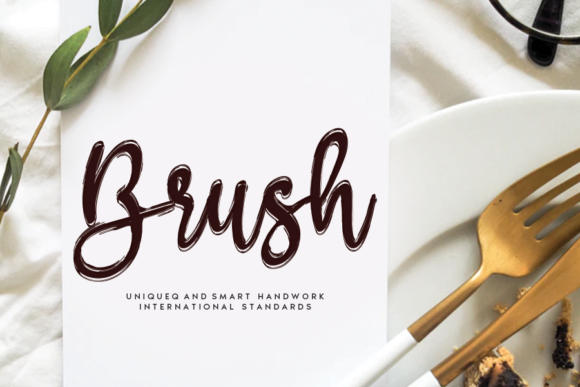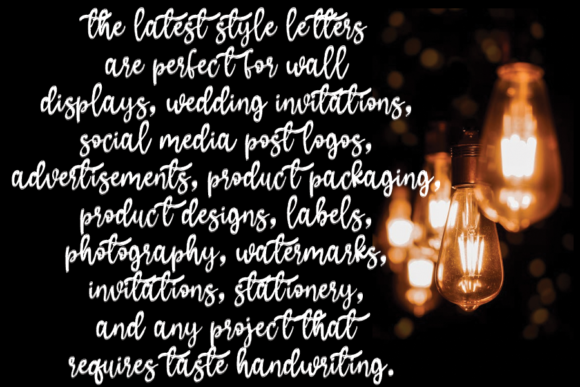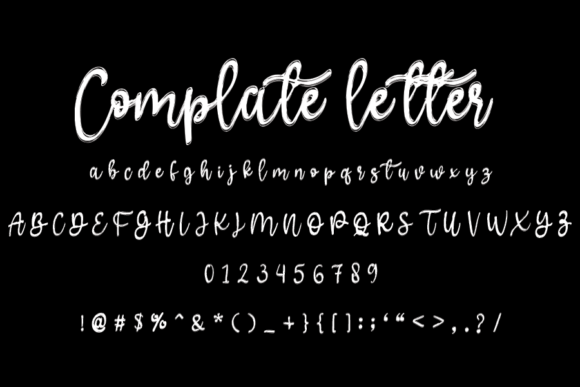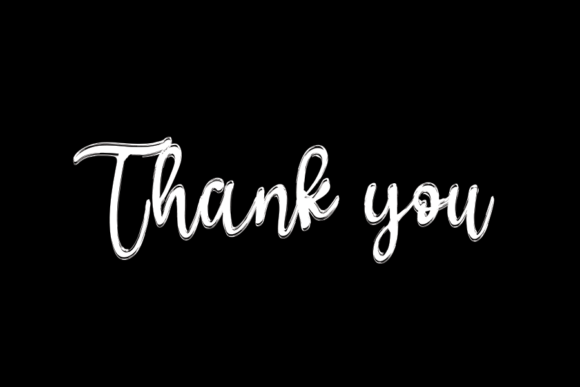
Crips Love Font: The Ultimate Friendly Handwritten Font for Your Design Projects
Are you tired of using the same old fonts for your design projects? Look no further! Introducing Crips Love Font, a cute and casual handwritten font that is sure to elevate your designs to the highest level. With its incredibly friendly feel, gorgeous swashes, and ligatures, this script font is perfect for a wide range of projects, from branding and headings to wedding designs, invitations, signatures, logos, labels, and more!
What Makes Crips Love Font So Special?
Crips Love Font is a unique and versatile font that stands out from the crowd. Its handwritten style gives it a personal and approachable feel, making it perfect for designs that require a friendly and casual touch. The font features beautiful swashes and ligatures that add a touch of elegance and sophistication to any design. Whether you’re creating a logo, invitation, or social media post, Crips Love Font is sure to make your design stand out.
Key Features of Crips Love Font
- Cute and Casual Handwritten Style: Crips Love Font has a unique handwritten style that is both cute and casual, making it perfect for a wide range of design projects.
- Incredibly Friendly Feel: The font has an incredibly friendly feel that makes it perfect for designs that require a personal and approachable touch.
- Gorgeous Swashes and Ligatures: The font features beautiful swashes and ligatures that add a touch of elegance and sophistication to any design.
- Versatile: Crips Love Font is incredibly versatile and can be used for a wide range of design projects, from branding and headings to wedding designs, invitations, signatures, logos, labels, and more!
Crips Love Font is perfect for designers and crafters who are looking for a unique and versatile font to elevate their designs. Whether you’re creating a logo, invitation, or social media post, this font is sure to make your design stand out. With its cute and casual handwritten style, gorgeous swashes, and ligatures, Crips Love Font is the perfect addition to any design project.
Use Cases for Crips Love Font
- Branding: Use Crips Love Font to create a unique and memorable brand identity that stands out from the crowd.
- Wedding Designs: Create beautiful wedding invitations, signs, and decorations with Crips Love Font.
- Invitations: Use Crips Love Font to create custom invitations for parties, events, and more!
- Signatures: Add a personal touch to your email signatures or social media profiles with Crips Love Font.
- Logos: Create a unique and memorable logo for your business or brand with Crips Love Font.
- Labels: Use Crips Love Font to create custom labels for your products or packaging.
Why Choose Crips Love Font?
There are many fonts available, but Crips Love Font stands out from the crowd. Here are just a few reasons why you should choose Crips Love Font for your design projects:
- Unique and Versatile: Crips Love Font is a unique and versatile font that can be used for a wide range of design projects.
- High-Quality Design: The font is designed with high-quality and attention to detail, ensuring that it looks great in any design.
In conclusion, Crips Love Font is a cute and casual handwritten font that is perfect for designers and crafters who are looking for a unique and versatile font to elevate their designs. With its incredibly friendly feel, gorgeous swashes, and ligatures, this script font is sure to make your design stand out. Whether you’re creating a logo, invitation, or social media post, Crips Love Font is the perfect addition to any design project.